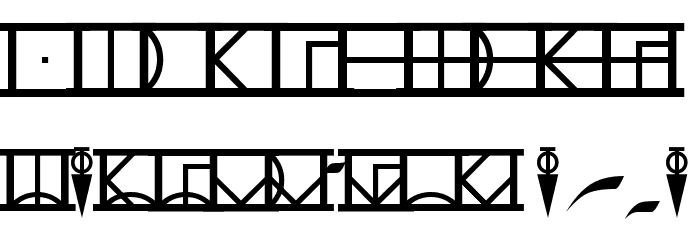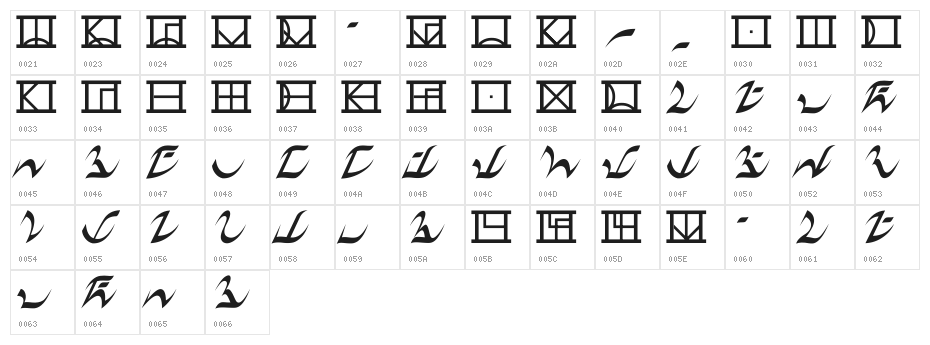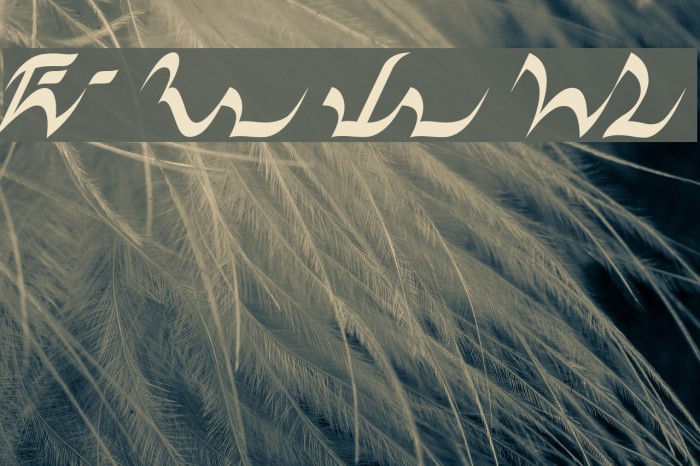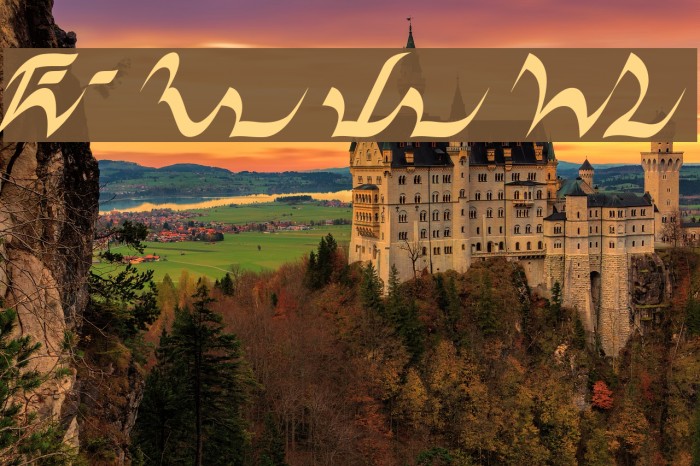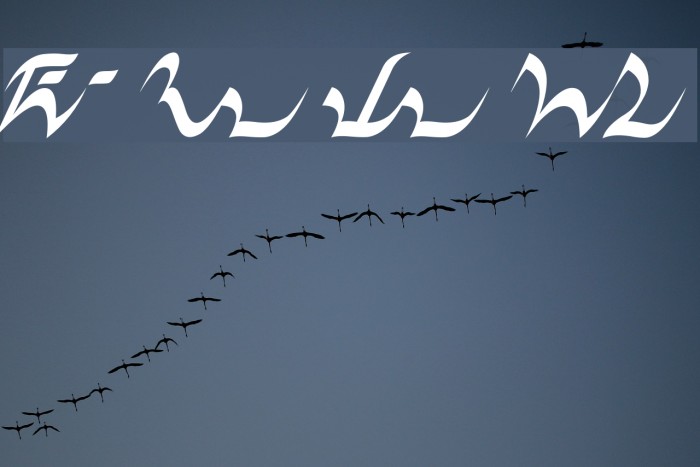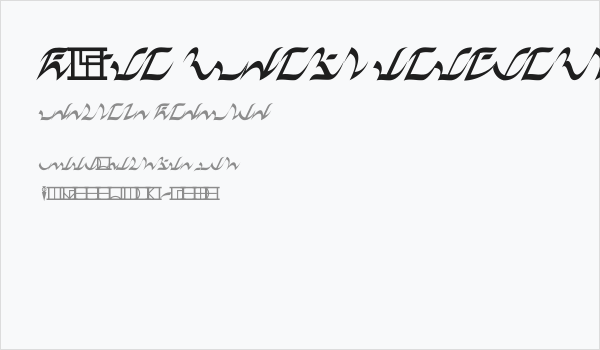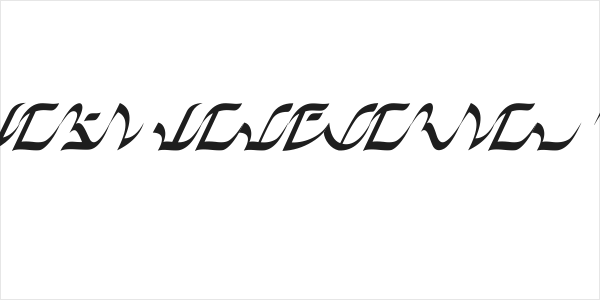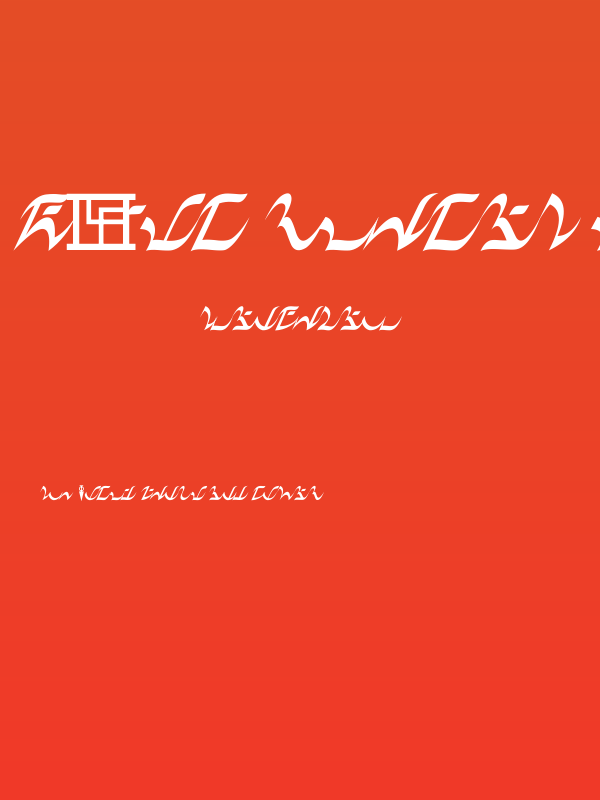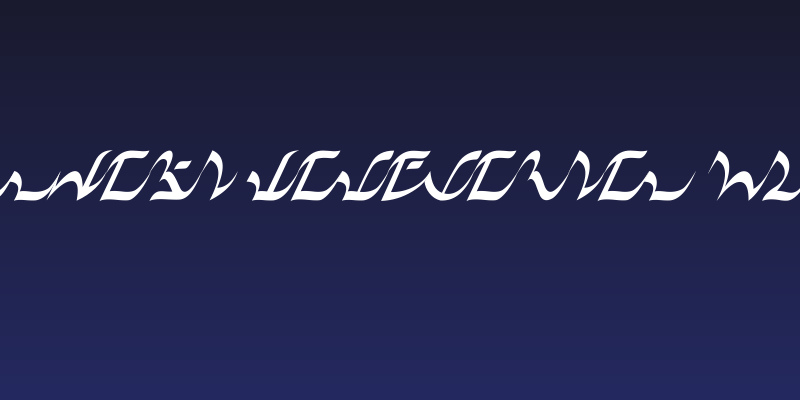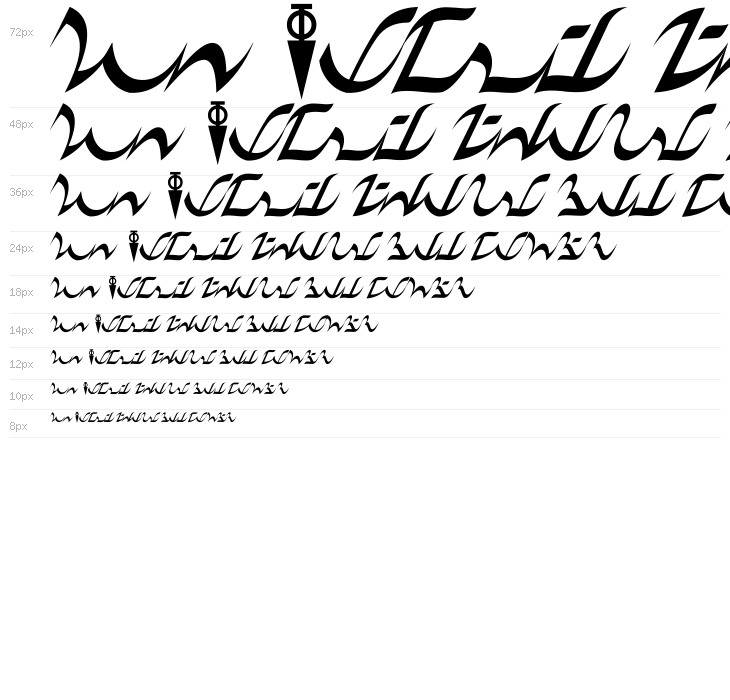
D'ni Script Linguistic Mapping Font
D'ni Script Linguistic Mapping Description
This font presents a unique and intricate design, characterized by its flowing, script-like appearance. The characters are highly stylized, with a blend of sharp angles and smooth curves, creating an elegant yet complex visual effect. The uppercase letters exhibit a sense of movement and fluidity, while the lowercase letters maintain a consistent style with slightly more compact forms. The numerals and special characters follow the same aesthetic, integrating seamlessly into the overall design. This font's distinctive style makes it stand out, offering a blend of artistic flair and readability.
| Use Case | Logos, Decorative text, Artistic projects |
| Proposed Projects | Ideal for artistic projects, branding, logos, and decorative purposes where a unique and sophisticated look is desired. |